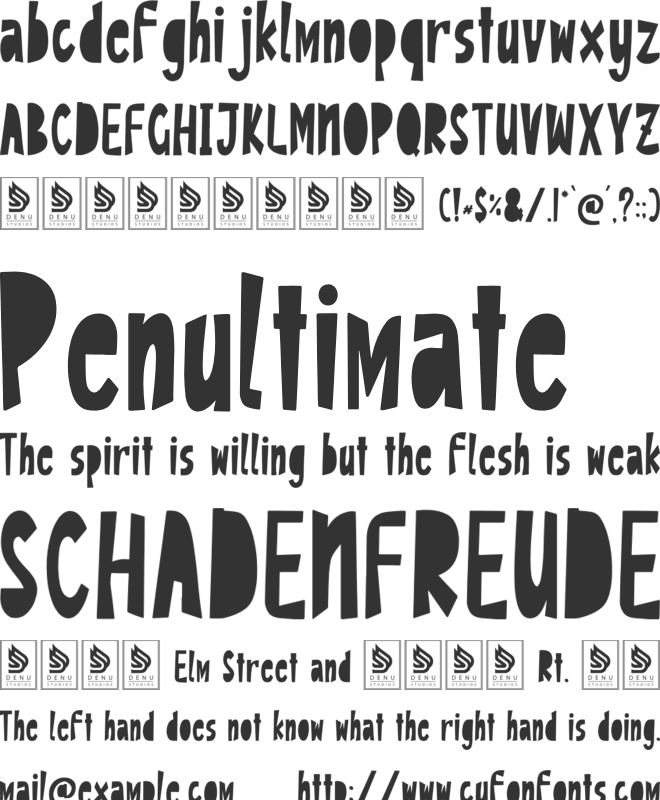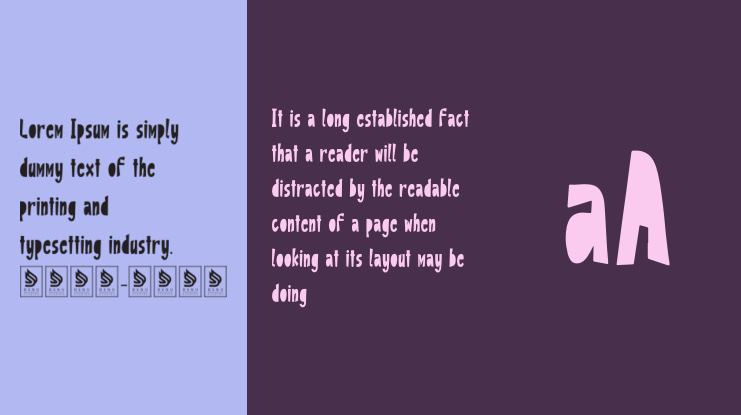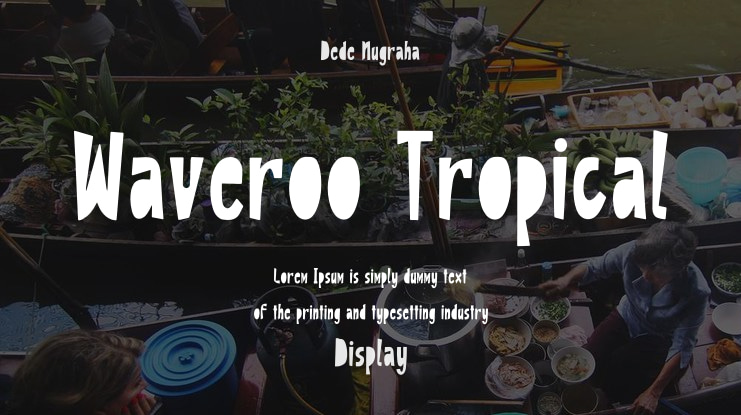
Waveroo Tropical | Cutout Handwritten is suitable for any projects such as: logos, branding projects, homeware designs, product packaging, mugs, quotes, posters, shopping bags, t-shirts, book covers, name card, invitation cards, greeting cards, label, photography, watermark, special events, and all your other lovely projects that need a Cutout Handwritten taste.